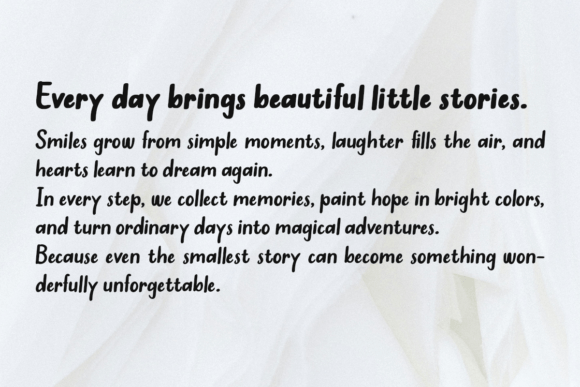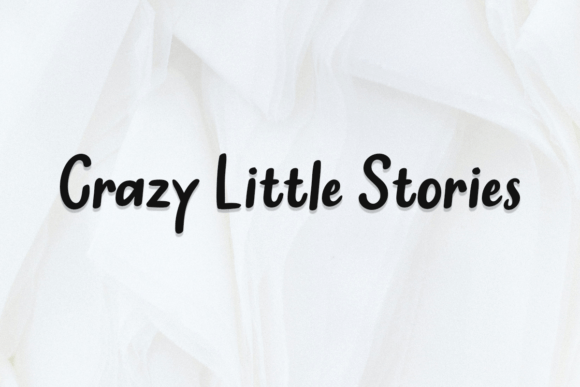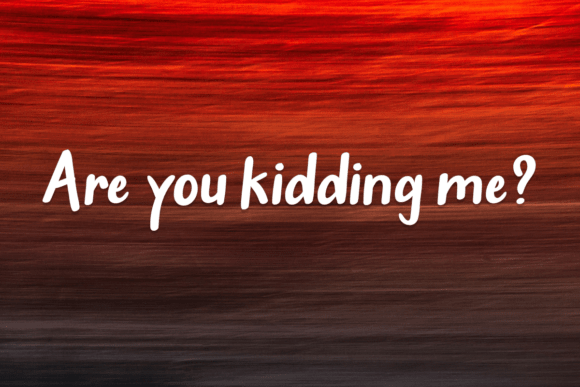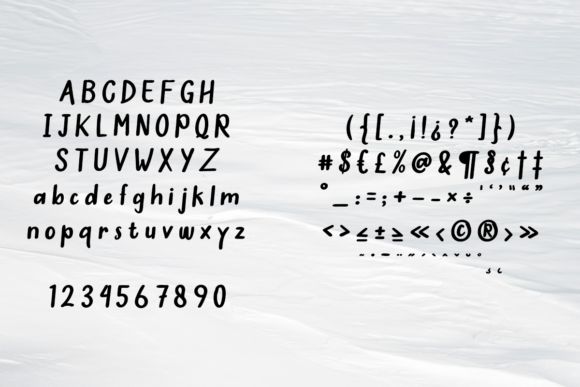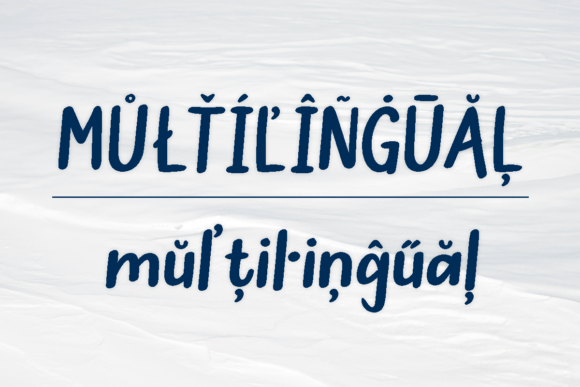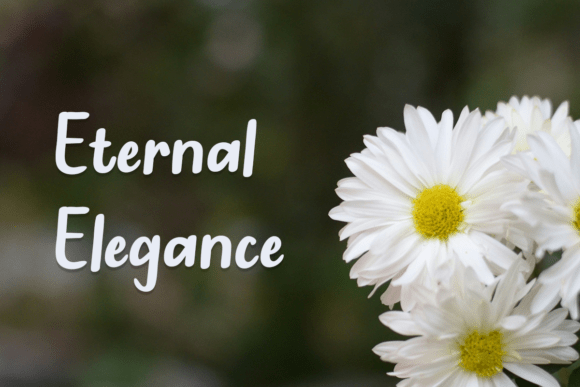
Introduction to Nathot Font
Have you ever found yourself lost in the vastness of the digital universe, searching for the perfect font to bring your creative project to life? As designers, we’ve all been there – scrolling through font libraries, trying to find that elusive combination of style and functionality that makes our designs truly shine. That’s where Nathot Font comes in – a game-changing typeface that’s out of this world.
With its soft, rounded strokes and tall x-height, Nathot Font is the perfect companion for designers looking to create high-quality, visually stunning designs that demand attention. Whether you’re working on a futuristic mobile app interface, a cosmic-themed poster, or a futuristic merchandise design, this versatile font is sure to deliver. And the best part? It’s available for free download, making it an essential design resource for any creative project.
Key Features of Nathot Font
- Nathot Font is a high-quality, free download font ideal for creative projects requiring a unique touch.
- It features a transparent background, making it easy to overlay on images or use as a design resource.
- Nathot Font comes in a single size, making it versatile for use in a variety of creative contexts.
- The font has a resolution of 72 dpi, suitable for web and digital design applications.
- Its unique, creative design makes it an excellent choice for designers looking to add a touch of personality to their projects.
- Nathot Font is a valuable design resource for anyone seeking a high-quality, free font with a transparent background.
Honest Review: Nathot Font
I recently had the chance to try out the Nathot Font, and I must say it’s a solid addition to any designer’s toolkit. One of the standout features of this font is its unique, high-quality design that’s perfect for creative projects where you need a distinctive look.
- ✨ The font features a transparent background, which allows for easy integration into any design without worrying about distracting elements.
- ⚠️ The font’s unique design may not be to everyone’s taste, so be sure to test it out in your design before committing to a project.
Overall, I’m impressed with the Nathot Font’s high-quality design and ease of use. It’s a great resource for designers who need a unique font for their creative projects. Just be aware of the limitations, and use it wisely.
Nathot Font
The Nathot Font is a versatile and high-quality design resource perfect for any creative project. It’s available for free download and features a transparent background, making it easy to integrate into your design.
Tips for Getting the Most Out of Nathot Font
To get the most out of the Nathot Font, experiment with different font sizes, colors, and styles. You can also combine the Nathot Font with other design elements to create a unique and eye-catching design.
Common Use Cases for Nathot Font
The Nathot Font is perfect for a variety of creative projects, including graphics, logos, branding materials, presentations, documents, and more. Its high-quality design and transparent background make it a versatile and useful design resource.
Q: Is Nathot Font suitable for use in digital products, such as mobile apps and websites?
Yes, Nathot Font is suitable for use in digital products, such as mobile apps and websites. The font is designed to be legible and readable on a variety of screen sizes and resolutions. However, please note that the font may not be optimized for very small font sizes